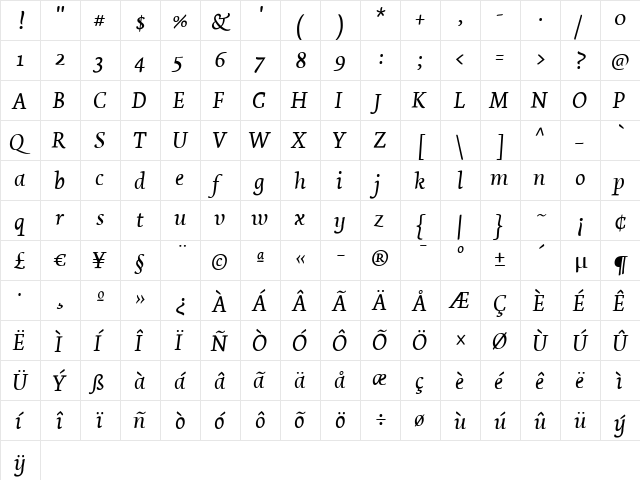
Dolly Italic
Design Context for Dolly Typeface
Dolly takes a measured approach to typography — its balanced proportions and neutral character make it a reliable workhorse for both digital and print work. The slanted form adds forward momentum and visual energy.
Pro Tip: Try Dolly for annotation and caption copy alongside an upright companion — the contrast in angle creates a dynamic but ordered typographic system.